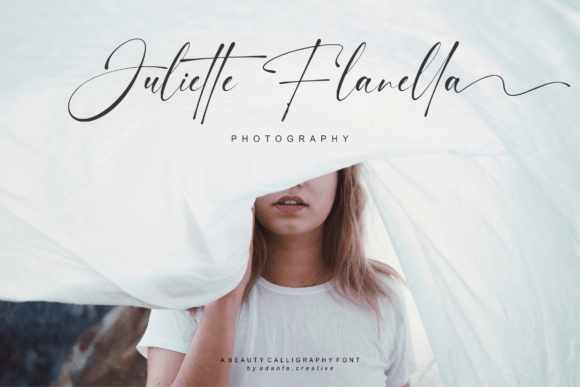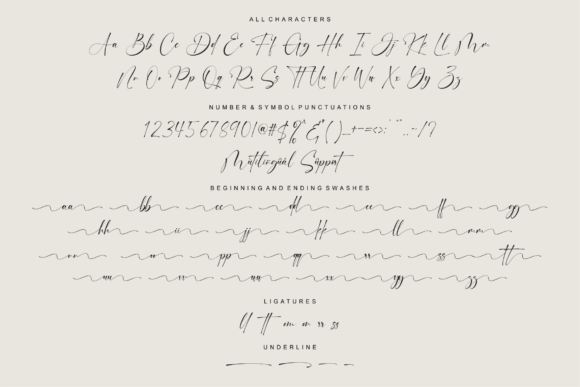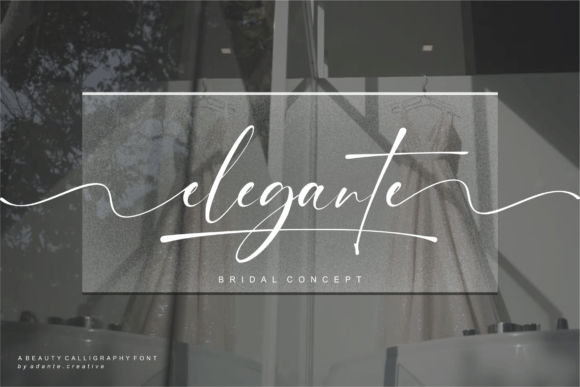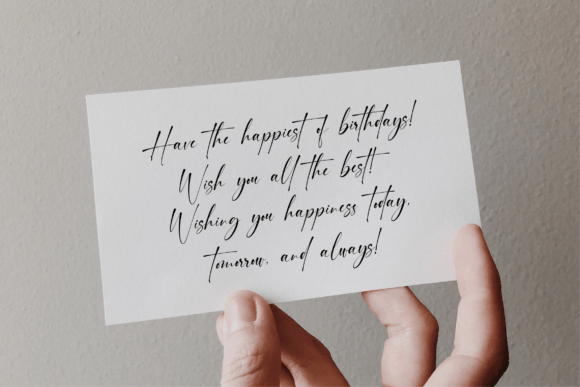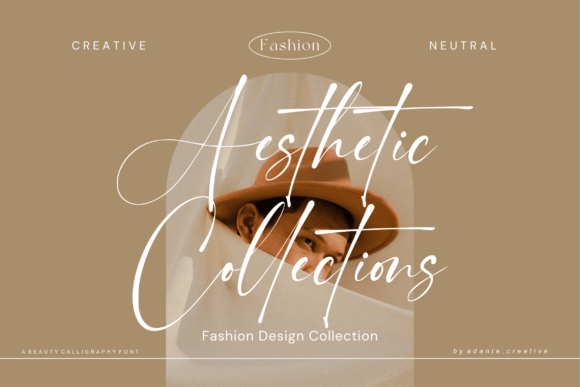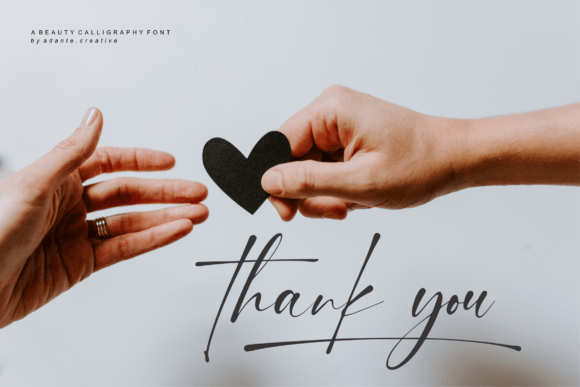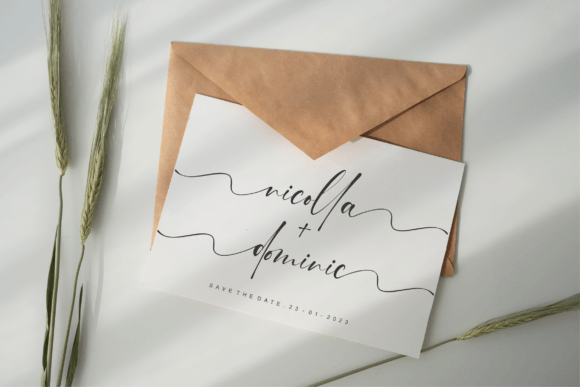
Handcaster Font
About Handcaster Font
“Handcaster” is a dazzling script font that boasts meticulous craftsmanship and intricate details. This font is a valuable addition to your font library, as its versatility allows it to elevate any creative project, regardless of the topic or context. Notably, “Handcaster” is PUA encoded, granting you effortless access to all its glyphs and swashes, expanding your design possibilities.
The meticulously crafted and highly detailed design of “Handcaster” brings a sense of sophistication and elegance to your creative work. Its versatility allows it to seamlessly integrate into a wide range of design applications, from branding and logos to invitations, stationery, posters, and more.
In the realm of design, fonts serve as pivotal elements for conveying style, mood, and visual identity. “Handcaster” excels in these aspects by offering a script style that is both dazzling and adaptable. Its aesthetics infuse your designs with a sense of authenticity and charm, making them captivating and memorable.
In summary, “Handcaster” is more than just a font; it’s a dazzling and versatile design tool that can enhance your creative projects. Its meticulously crafted and highly detailed script style, combined with PUA encoding, makes it a top choice for designers seeking to infuse their work with sophistication and elegance. Whether you’re an experienced designer or just beginning your creative journey, “Handcaster” is the font that can help you bring your design ideas to life with ease and style.